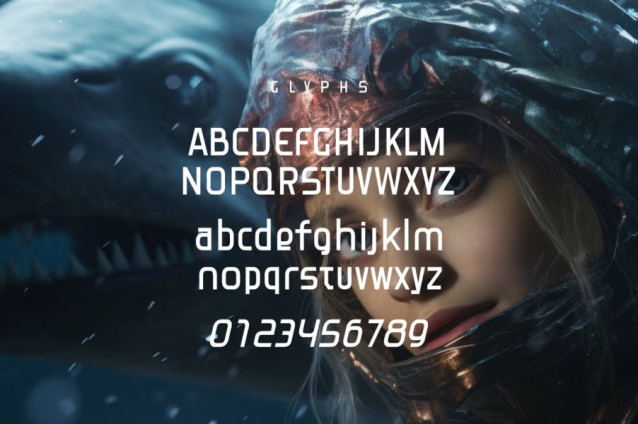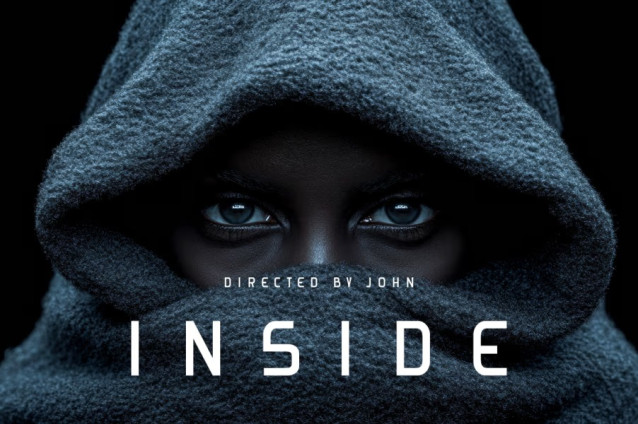
Po ligon Typeface
Po ligon Typeface a bold statement with our latest sans-serif font. With its clean lines and modern appeal, this font is sure to turn heads and leave a lasting impression. Perfect for headlines, logos, and any design that demands attention. It is both functional and stylish, making it a versatile choice for a wide range of design projects.